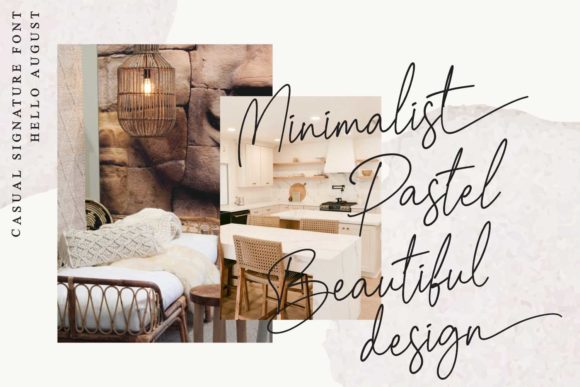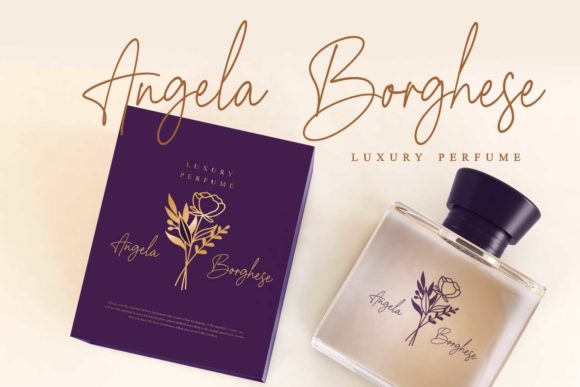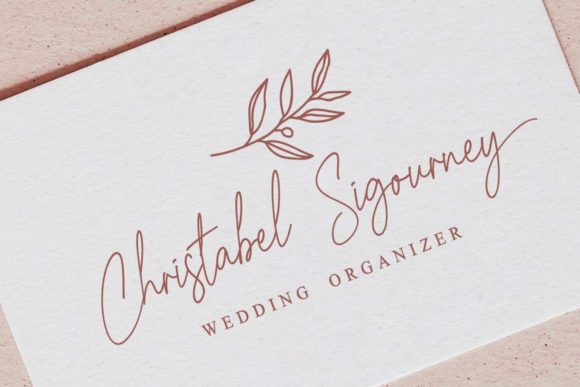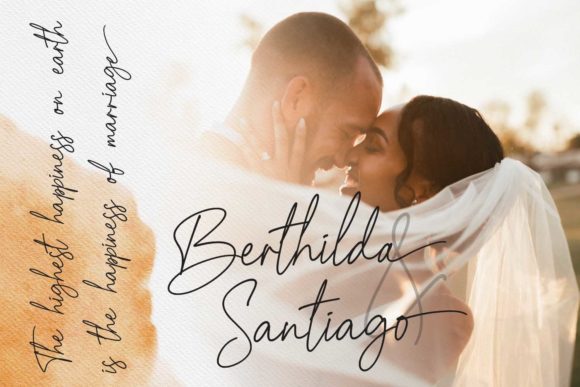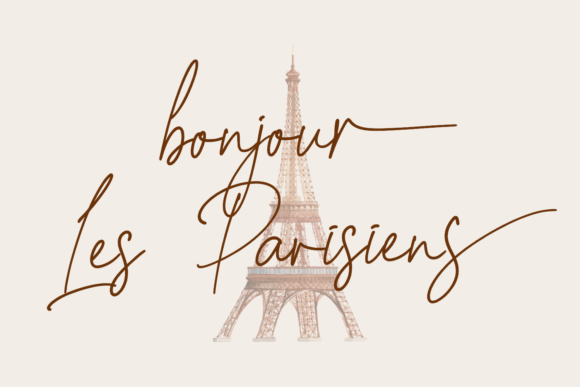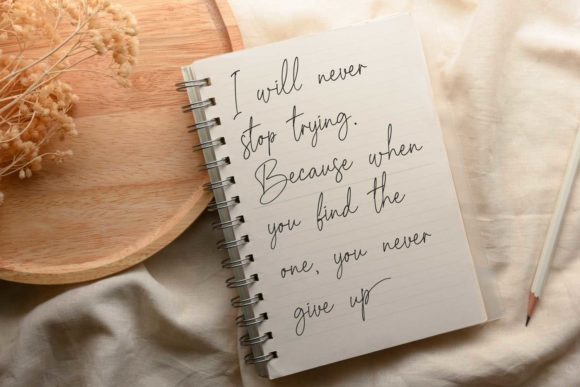
Introducing Hello August Font: The Perfect Addition to Your Design Arsenal
Are you tired of using the same old fonts in your designs? Look no further! Hello August Font is here to shake things up with its authentic and casual script style. This beautiful font is perfect for designers and crafters looking to add a personal touch to their work.
What Makes Hello August Font Special?
Hello August Font is an authentic and casual script font that exudes a sense of warmth and friendliness. Its unique and elegant style makes it perfect for a wide range of design projects, from branding and advertising to packaging and social media graphics.
PUA Encoding: What Does it Mean?
One of the standout features of Hello August Font is its PUA (Private Use Area) encoding. But what does this mean exactly? PUA encoding allows designers to access a wide range of glyphs and swashes with ease, giving them more creative freedom and flexibility.
In simpler terms, PUA encoding means that you can easily access and use the font’s built-in features, such as ligatures, ornaments, and stylistic alternates, to create unique and eye-catching designs. This feature is especially useful for designers who want to add a personal touch to their work.
Features and Benefits of Hello August Font
Hello August Font comes with a range of features and benefits that make it an excellent addition to any designer’s toolkit. Some of the key features include:
- Authentic and casual script style: Hello August Font has a unique and elegant style that is perfect for a wide range of design projects.
- PUA encoding: Easily access a wide range of glyphs and swashes to add a personal touch to your designs.
- High-quality design: The font is designed with high-quality and clarity in mind, ensuring that it looks great in any design.
Uses for Hello August Font
Hello August Font is a versatile font that can be used in a wide range of design projects. Some of the most popular uses for this font include:
- Branding and advertising: Hello August Font is perfect for creating eye-catching logos, advertisements, and marketing materials.
- Packaging design: The font’s elegant and sophisticated style makes it ideal for packaging design, including labels, tags, and more.
- Social media graphics: Hello August Font is perfect for creating engaging social media graphics, including Facebook posts, Instagram stories, and more.
- Stationery and invitations: The font’s casual and friendly style makes it perfect for creating personalized stationery, invitations, and greeting cards.
Tips for Using Hello August Font
To get the most out of Hello August Font, here are a few tips to keep in mind:
- Experiment with different sizes and styles: Hello August Font looks great in a variety of sizes and styles, so don’t be afraid to experiment and find the perfect look for your design.
- Use it with other fonts: Hello August Font pairs well with a range of other fonts, so try combining it with other fonts to create a unique and eye-catching design.
- Take advantage of PUA encoding: Don’t be afraid to get creative with Hello August Font’s PUA encoding features, including glyphs and swashes.
Hello August Font is a beautiful and versatile font that is perfect for designers and crafters looking to add a personal touch to their work. With its authentic and casual script style, PUA encoding, and range of features and benefits, this font is sure to become a staple in any designer’s toolkit.